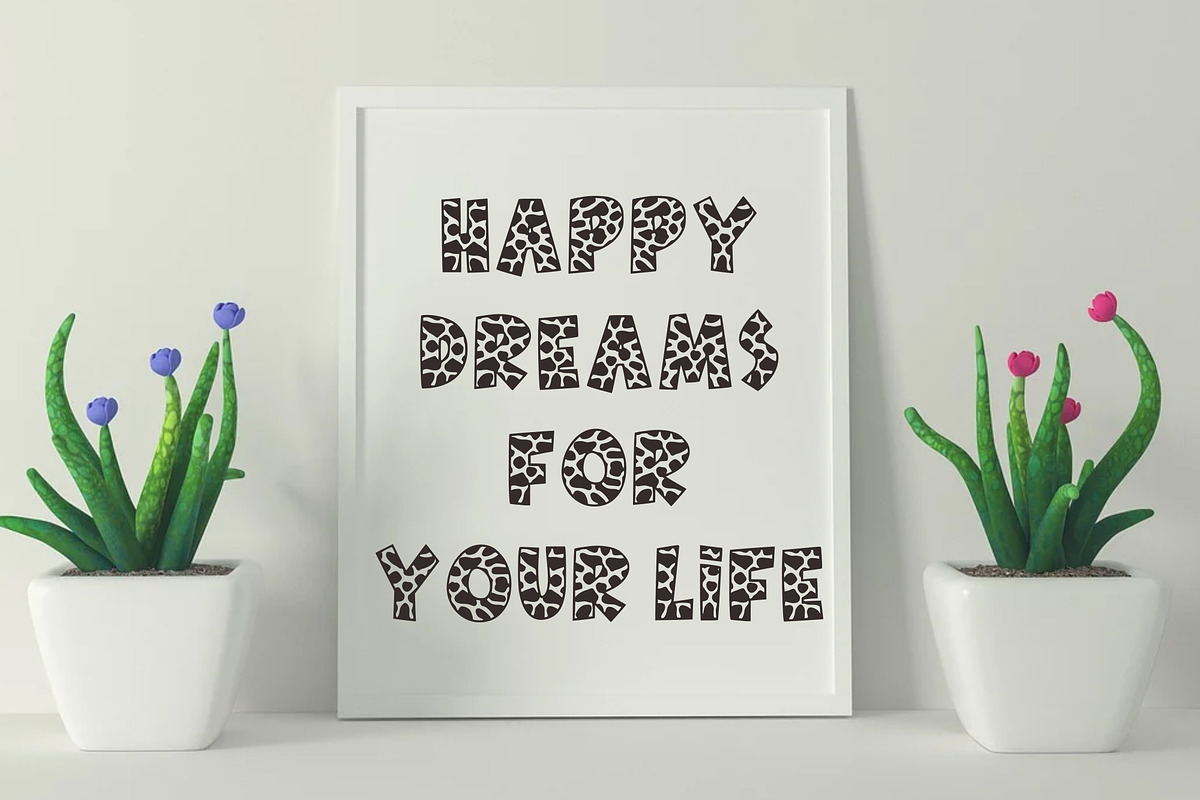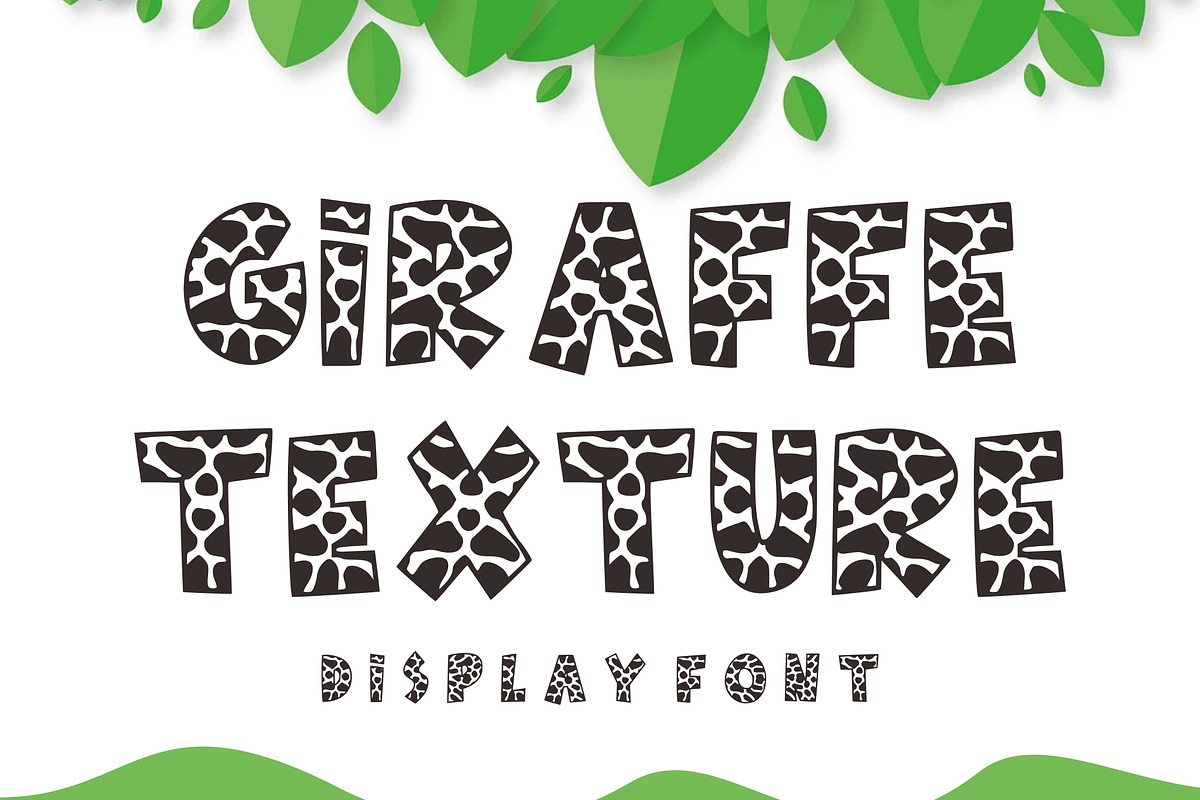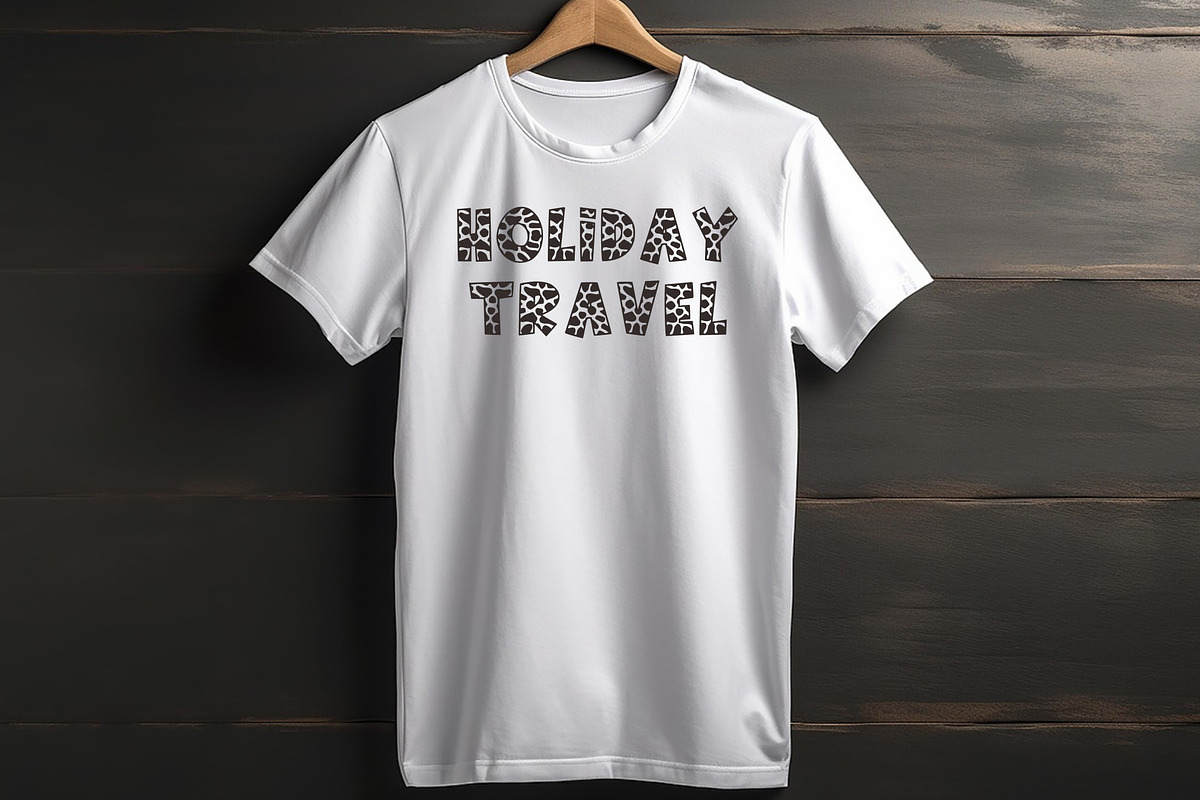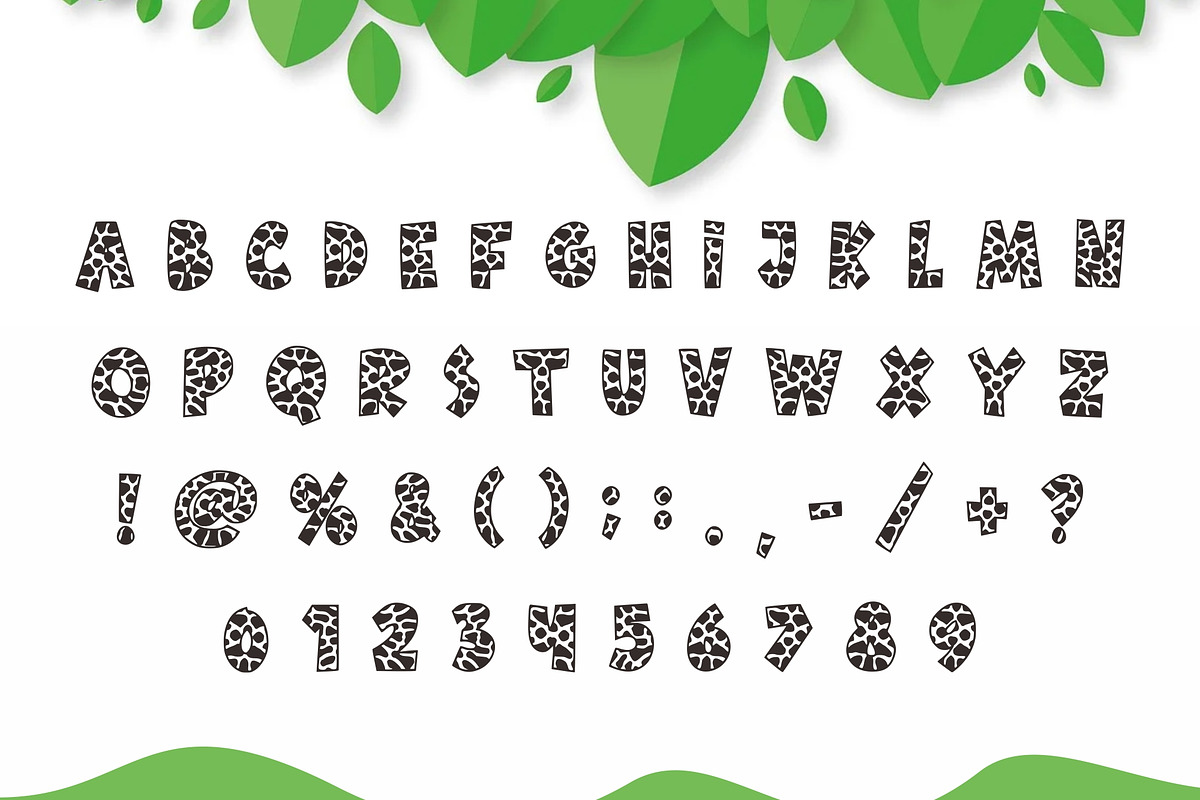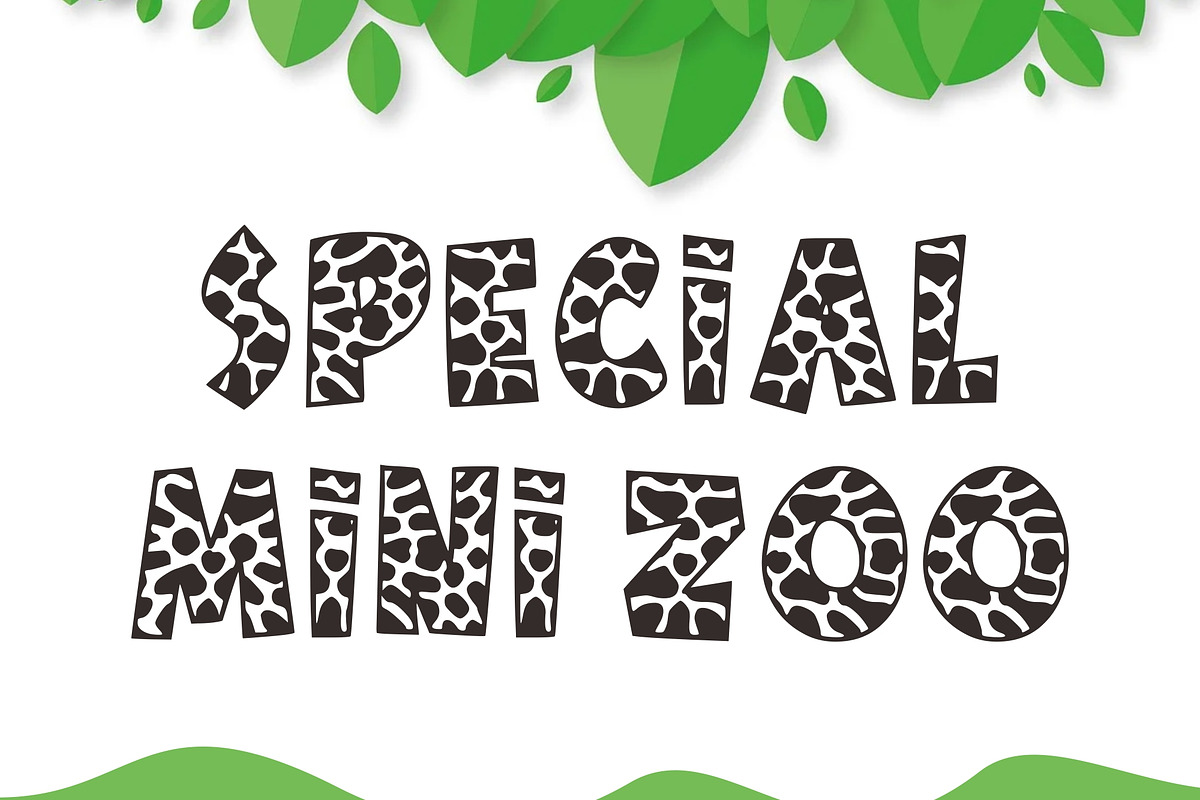
Giraffe Texture
Giraffe Texture font is a wild, adventurous display typeface designed to bring the spirit of the savannah to your creative projects.
Each character is meticulously filled with organic, pebble-like patterns that mimic a giraffe’s coat, making it a perfect choice for children’s books, zoo branding, and eco-friendly packaging. Whether you are designing a playful birthday invitation or a bold headline for a nature documentary, the Giraffe Texture typeface stands out with its chunky, hand-drawn silhouettes and captivating internal detail.
To create a balanced look, pair this Giraffe Texture font with clean, minimalist sans-serifs that allow its intricate patterns to remain the focal point. It works exceptionally well on large scales where the texture can be fully appreciated.
Elevate your jungle-themed layouts and educational posters with the unique, rhythmic energy of this Giraffe Texture typeface, a font that turns every word into a visual adventure.